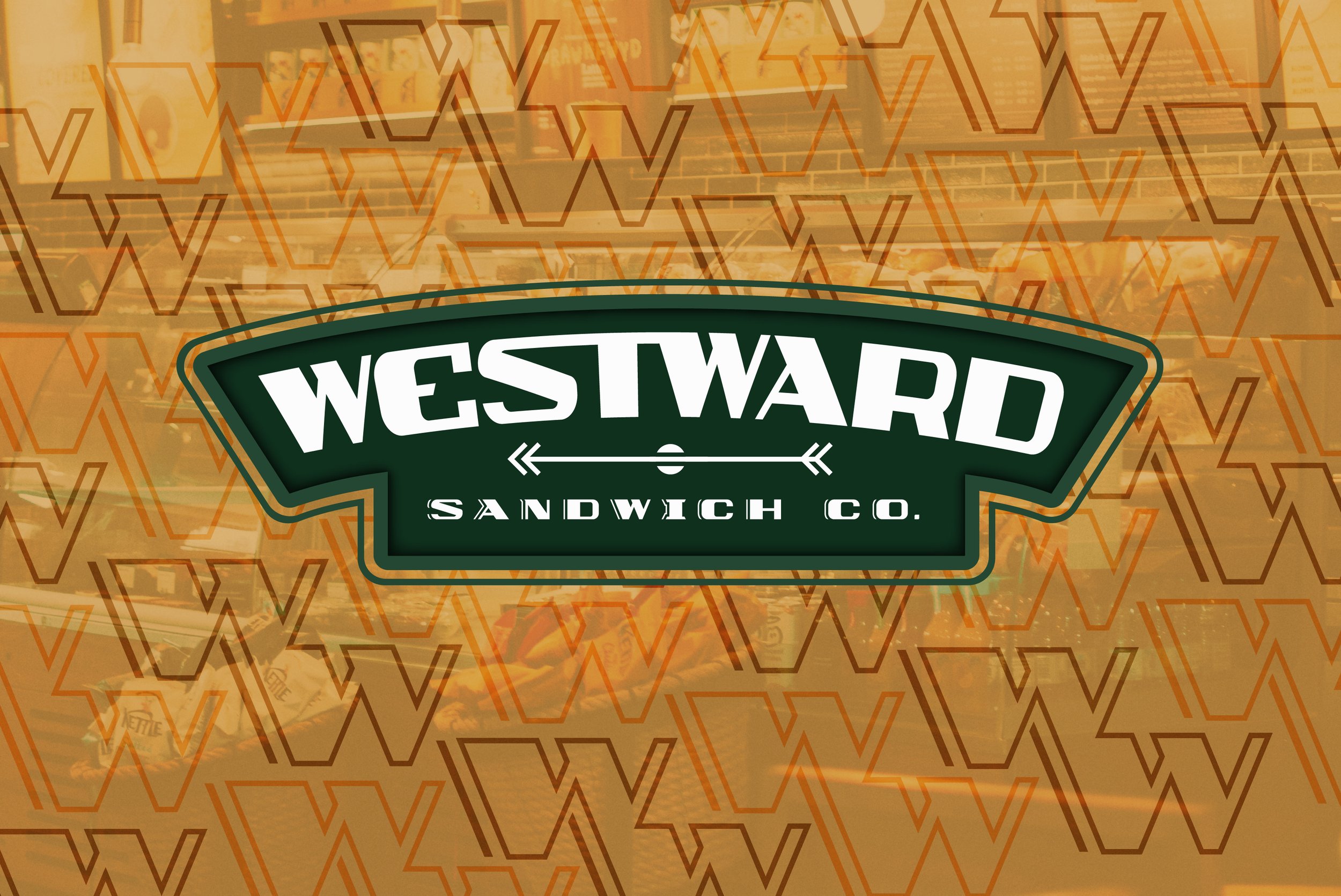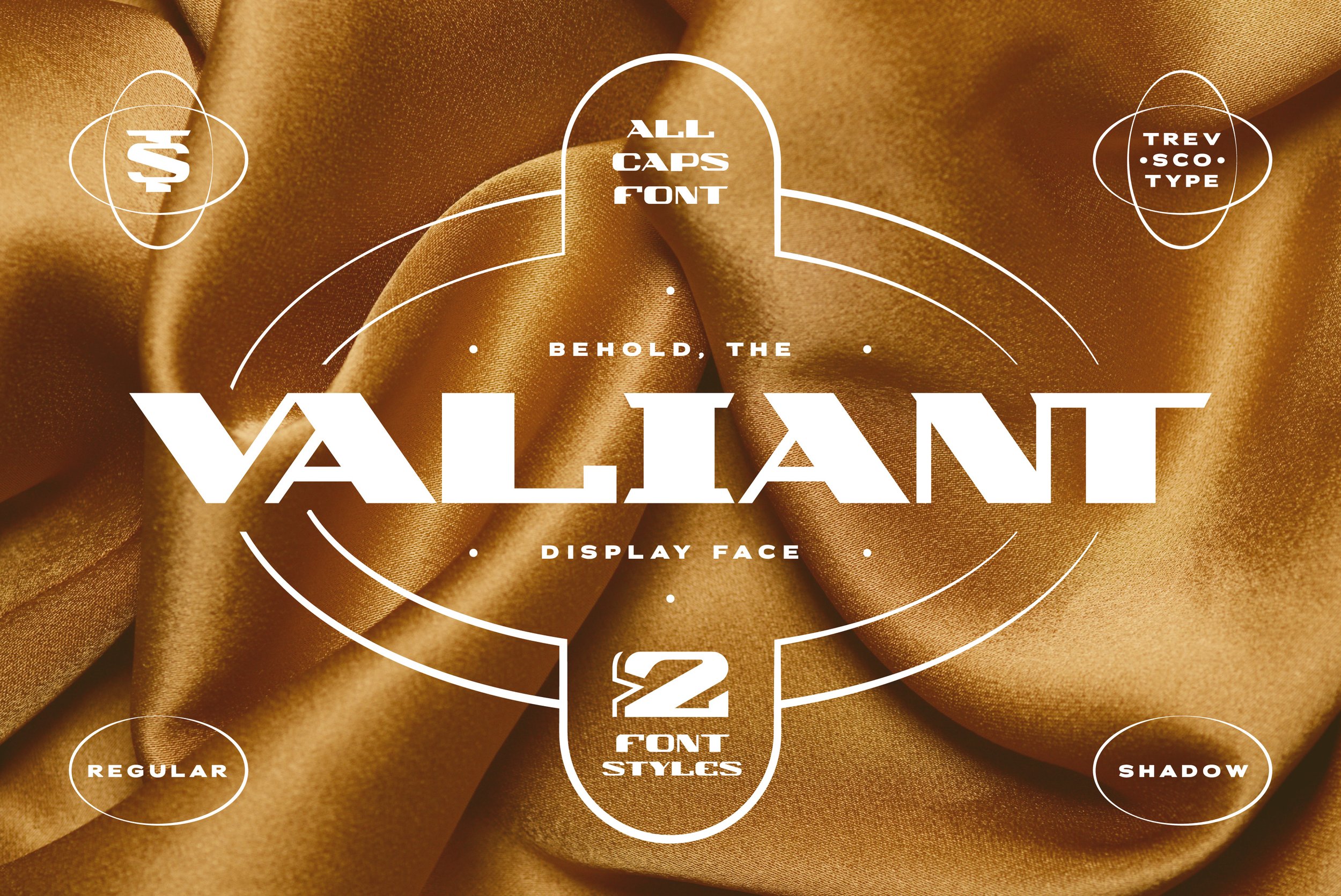
Valiant
Wide, bold, epic, heroic, powerful, and sturdy are some words to describe Valiant's prowess. This expanded display font features two styles and is certain to cover lots of ground. It includes a regular style as well as a shadowed style. This font includes CAPITAL letterforms only.